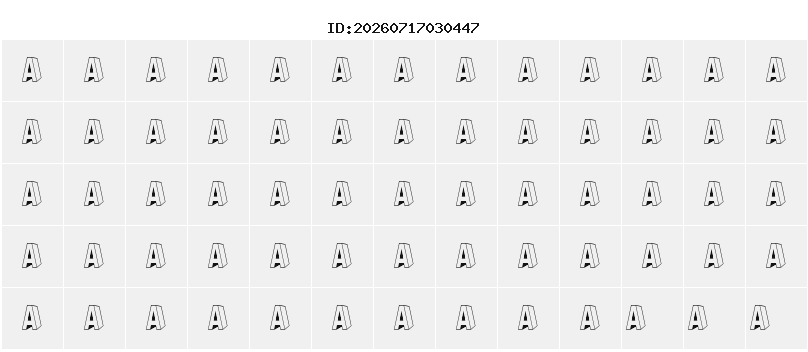
A Ryal Black Block Preview
About A Ryal Black Block.ttf
A Ryal Black Block.ttf is a modern, elegant sans-serif font designed for ultimate readability and visual harmony. Perfect for branding, headlines, web design, and print materials.